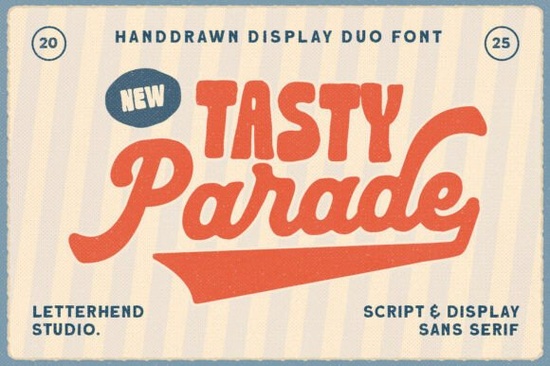
If you’ve been searching for a font that feels both nostalgic and full of personality, Tasty Parade Duo Font might be exactly what your next project needs. Designed with food branding and retro-inspired visuals in mind, this hand-drawn duo combines a playful script with a bold, chunky sans serif perfect for menus, packaging, or social posts that need to stand out without trying too hard.
What makes Tasty Parade work so well is its balance. The display sans grabs attention with thick, friendly letterforms, while the script adds movement and charm through lively curves and subtle swashes. Together, they create a dynamic pairing that feels handmade but polished ideal for bakeries, coffee shops, or anyone creating vintage-style labels or promotional graphics.
When should you use Tasty Parade Duo Font?
This font shines in projects where warmth, appetite appeal, and a touch of whimsy matter. Think:
- Cafe chalkboard signs or printed menus
- Food truck branding or dessert packaging
- Social media banners for seasonal promotions
- Retro-inspired posters or event flyers
- Print-on-demand mugs, tote bags, or aprons with food-themed quotes
Because it’s PUA-encoded, you get easy access to all alternate characters, ligatures, and decorative swashes directly through your design software no digging through glyph panels unless you want to fine-tune details.
How does it compare to other display fonts?
Not all display fonts carry the same mood. While something like Viking Font leans into rugged, medieval energy, or The Silent Murder Font brings dramatic horror vibes, Tasty Parade stays firmly in cheerful, inviting territory. It’s more aligned with fonts built for joy than intimidation.
If you’re exploring duo fonts for holiday projects, you might also consider Merry Christmas Duo Font, which offers festive flair with similar pairing logic. And for urban, street-art-inspired designs, City Spray Font delivers grittier texture but again, Tasty Parade keeps things light, tasty, and approachable.
Is it beginner-friendly?
Yes especially if you're using design tools like Canva, Adobe Illustrator, or Affinity Designer. Since both styles (script and sans) are included in one download, you can quickly test combinations without juggling multiple files. Just remember: because it’s a display font, it’s best used at larger sizes for headlines or short phrases. Avoid body text or tiny labels where legibility could suffer.
Also worth noting: the handmade quality means letters aren’t perfectly uniform and that’s intentional. Those slight irregularities give your design authenticity, especially when mimicking vintage signage or artisanal product labels.
Tips for pairing and styling
To get the most out of this duo:
- Use the sans version for main headlines it’s bold enough to command attention even in busy layouts.
- Add the script as a supporting element, like subheadings, taglines, or decorative accents (e.g., “Freshly Baked Daily”).
- Avoid overloading both styles in the same line they work best when given space to breathe.
- Pair with simple, neutral background textures (kraft paper, soft pastels, or muted tones) to let the font’s personality shine.
And don’t forget: because it’s retro-inspired, lean into complementary design elements think rounded corners, hand-drawn icons, or classic diner color palettes (mustard yellow, cherry red, mint green).
- Is my project food-related, joyful, or vintage-themed?
- Do I need a headline font not body text?
- Am I comfortable using display fonts with intentional imperfections?
- Will I use both the script and sans versions to create contrast?
If you answered “yes” to most of these, Tasty Parade Duo Font could be a flavorful addition to your creative toolkit.